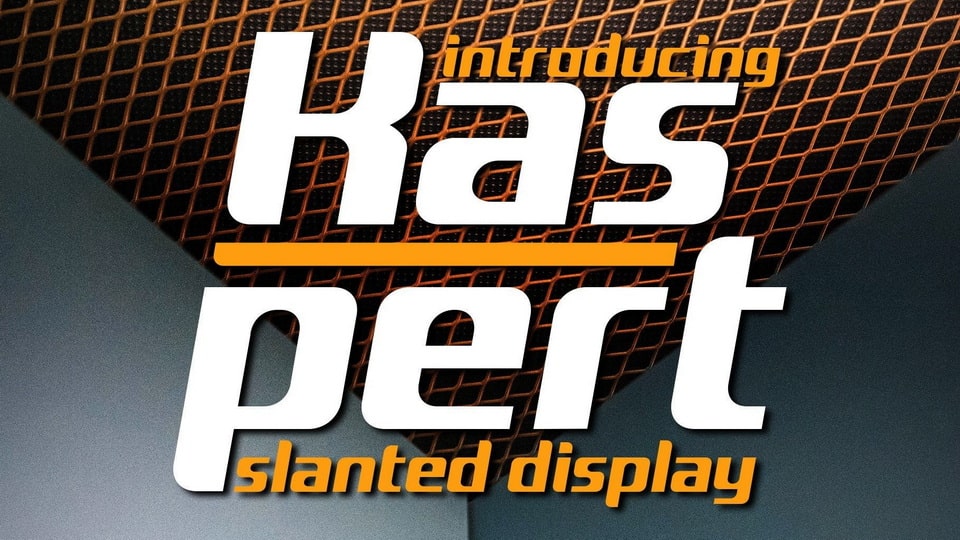
Download Kaspert font, a slanted display typeface with bold and modern look. Kaspert font offers all the basic styles you will need for a successful project.
Designer: Drizy Studio